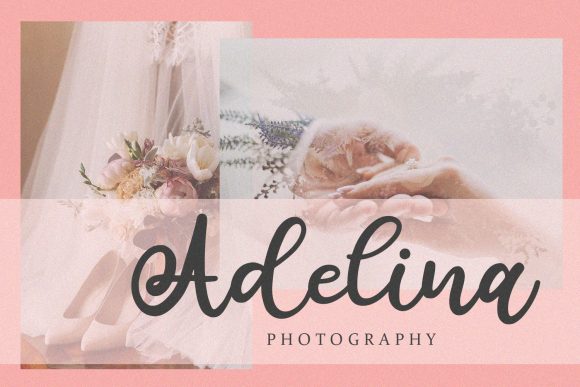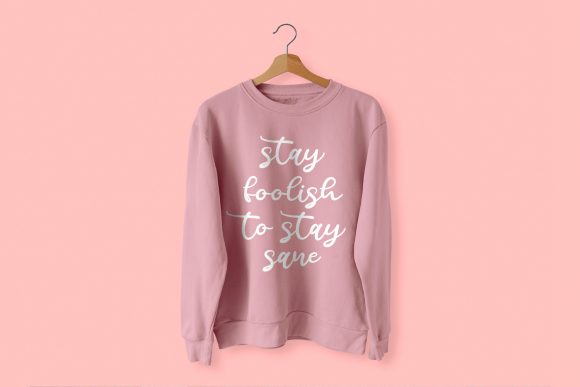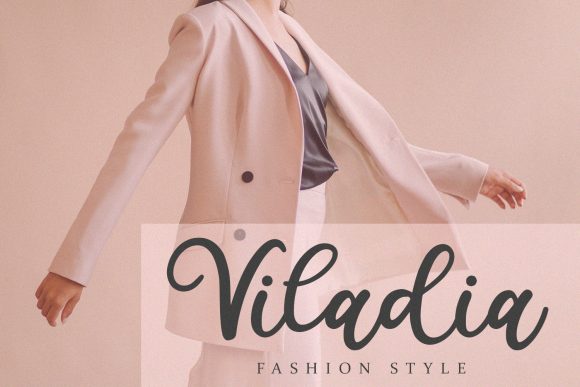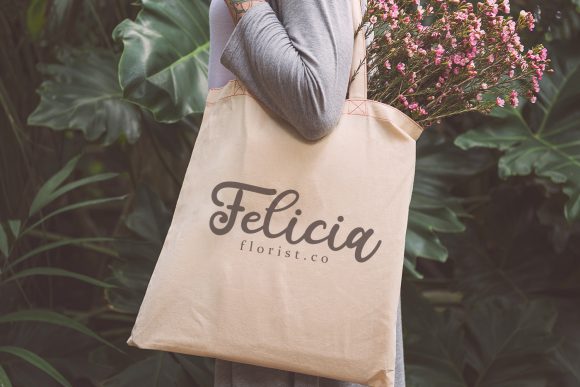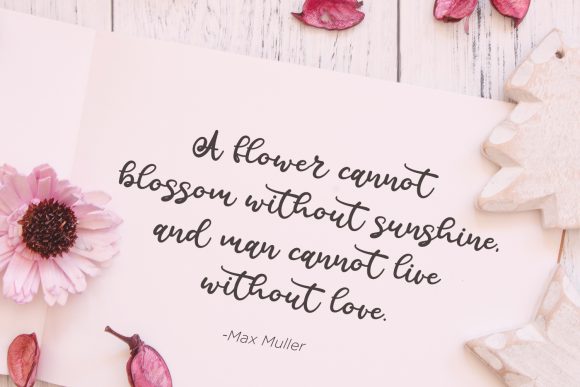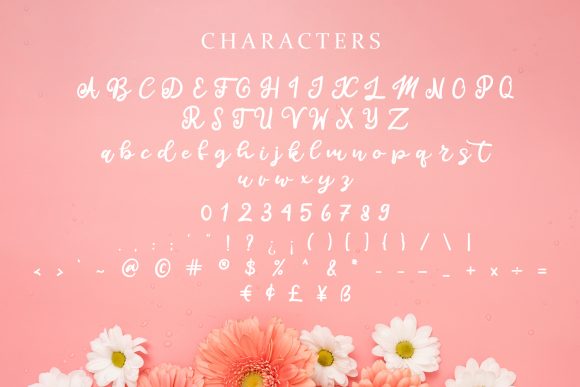
Introducing Calista Font: The Perfect Handwritten Touch for Your Designs
Are you a designer or crafter looking for a unique and elegant font to add a personal touch to your creations? Look no further than Calista Font, a beautiful and delicate handwritten font that’s perfect for a variety of design projects. In this article, we’ll take a closer look at Calista Font, its features, and how you can use it to elevate your designs.
What is Calista Font?
Calista Font is a dainty and round lettered handwritten font that’s designed to add a touch of elegance and sophistication to your designs. With its delicate and cursive script, Calista Font is perfect for creating beautiful and eye-catching designs that require a personal touch. Whether you’re designing wedding invitations, thank you cards, quotes, greeting cards, logos, or business cards, Calista Font is the perfect choice.
Features of Calista Font
So, what makes Calista Font so special? Here are some of its key features:
- Dainty and delicate: Calista Font is a beautifully crafted font that’s designed to be delicate and dainty. Its thin lines and curves make it perfect for creating elegant and sophisticated designs.
- Round lettered: Unlike other fonts that can be sharp and angular, Calista Font features round lettering that’s soft and inviting.
- Handwritten: Calista Font is a handwritten font that’s designed to mimic the look and feel of handwriting. This makes it perfect for adding a personal touch to your designs.
- Versatile: Calista Font is a versatile font that can be used for a wide range of design projects, from wedding invitations to business cards.
Uses of Calista Font
So, how can you use Calista Font in your designs? Here are some ideas to get you started:
- Wedding Invitations: Calista Font is perfect for creating beautiful and elegant wedding invitations that set the tone for the big day.
- Thank You Cards: Add a personal touch to your thank you cards with Calista Font, making them special and memorable.
- Quotes: Use Calista Font to create stunning quote designs that are perfect for social media, blogs, or websites.
- Greeting Cards: Calista Font is perfect for creating beautiful greeting cards for special occasions like birthdays, anniversaries, and holidays.
- Logos: Use Calista Font to create a unique and elegant logo for your business or brand.
- Business Cards: Add a touch of elegance to your business cards with Calista Font, making them stand out from the crowd.
Tips for Using Calista Font
Here are some tips for using Calista Font in your designs:
- Pair with other fonts: Calista Font pairs well with other fonts, so don’t be afraid to experiment with different combinations.
- Use it sparingly: While Calista Font is beautiful, it can be overwhelming if used too much. Use it sparingly to add a touch of elegance to your designs.
- Experiment with colors: Calista Font looks stunning in a variety of colors, so experiment with different hues to find the perfect one for your design.
In conclusion, Calista Font is a beautiful and elegant handwritten font that’s perfect for adding a personal touch to your designs. With its delicate and cursive script, Calista Font is versatile and can be used for a wide range of design projects. Whether you’re a designer or crafter, Calista Font is a must-have font that will elevate your designs and make them stand out from the crowd.